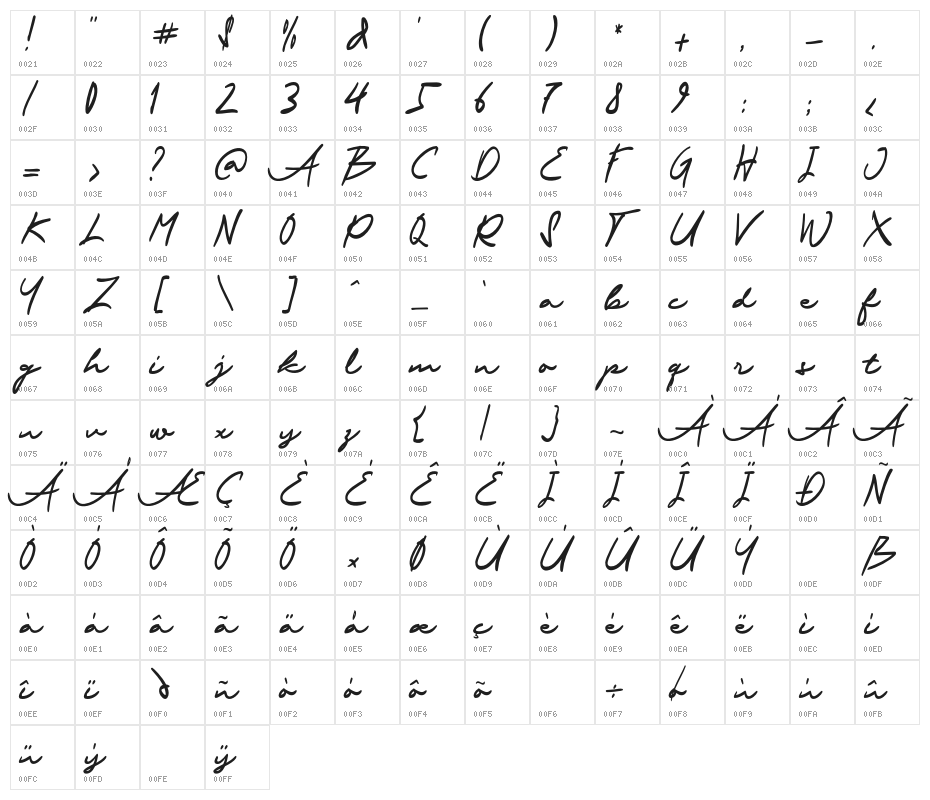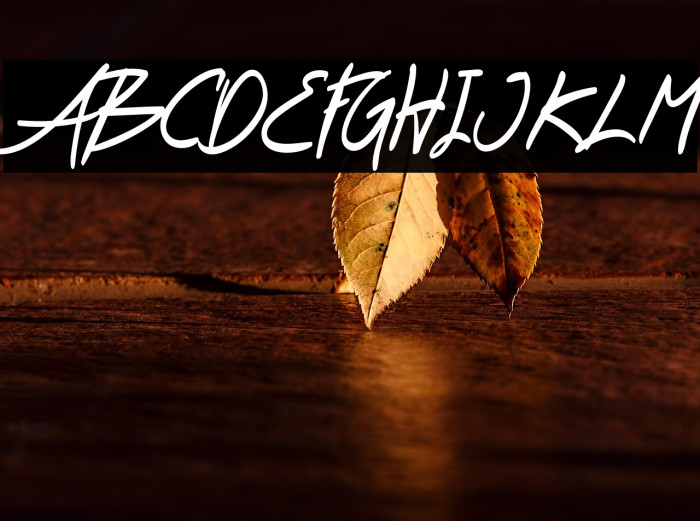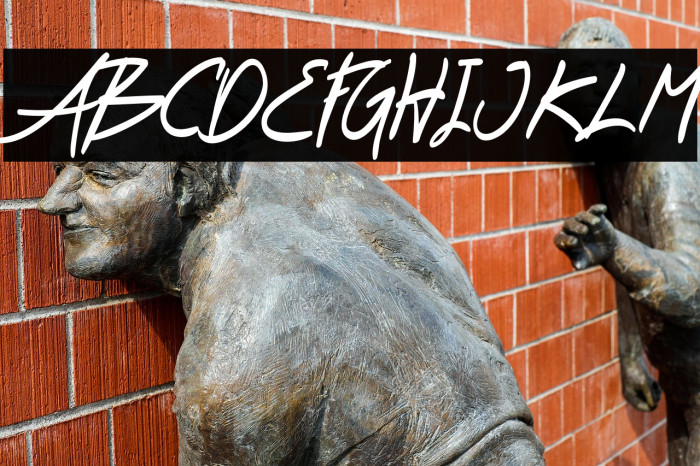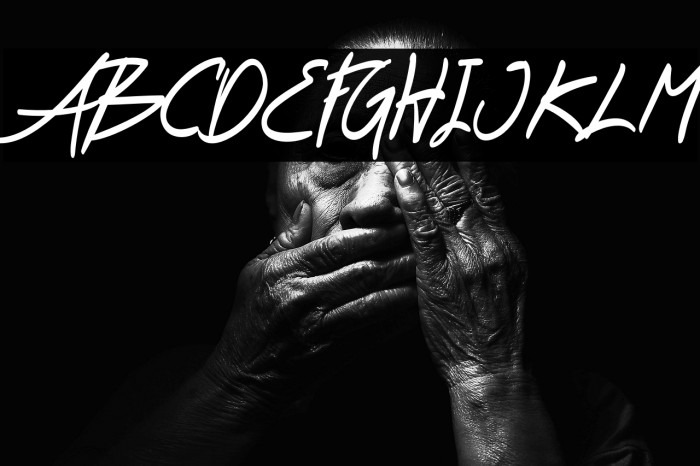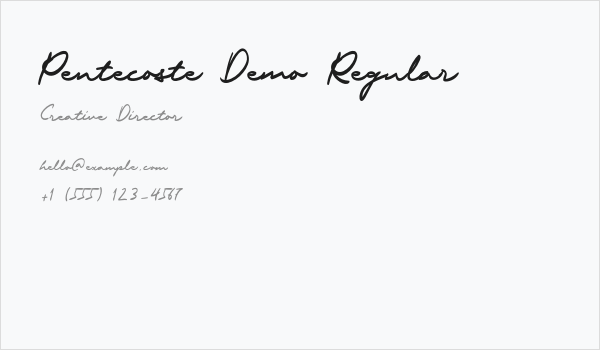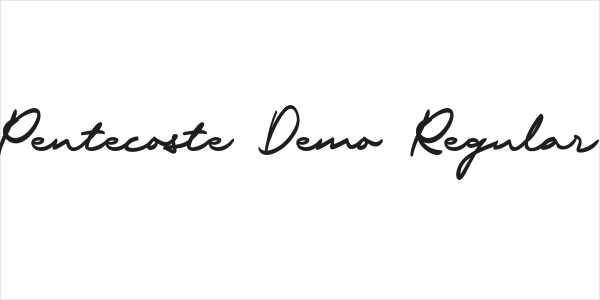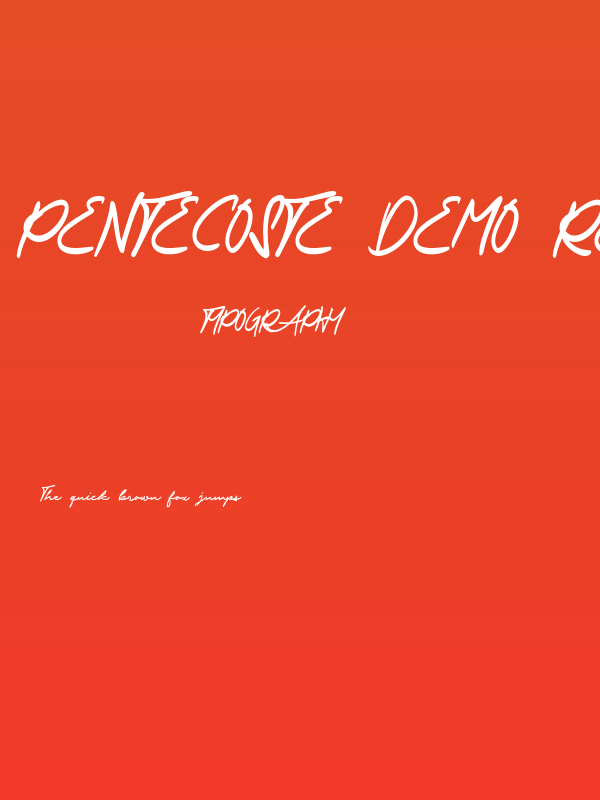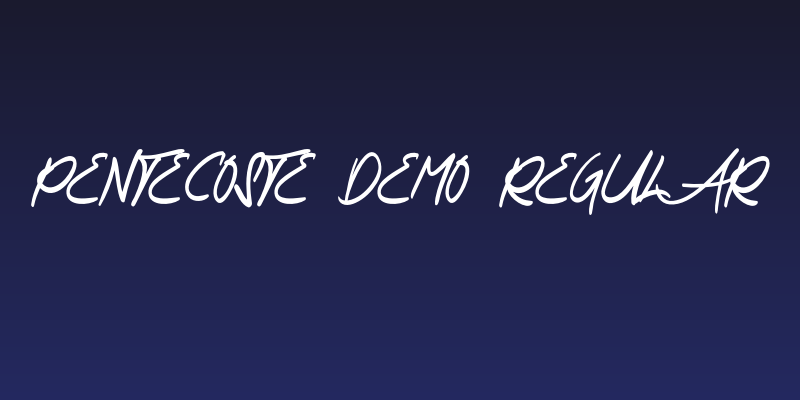
Pentecoste Demo Regular Font
Pentecoste Demo Regular Description
This font features a dynamic and expressive handwritten style, characterized by fluid and connected strokes that mimic natural handwriting. The uppercase letters are bold and slightly slanted, giving a sense of movement and energy. The lowercase letters maintain a consistent flow, with some letters extending below the baseline, adding to the casual and informal appearance. Numbers and special characters are crafted with the same lively style, ensuring a cohesive look across all elements. The overall design is both artistic and legible, making it suitable for creative projects that require a personal touch.